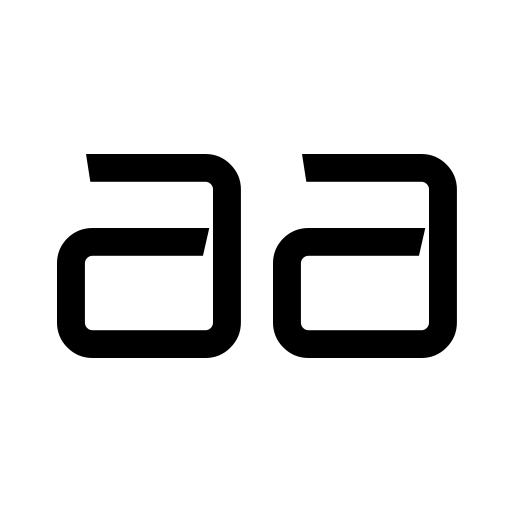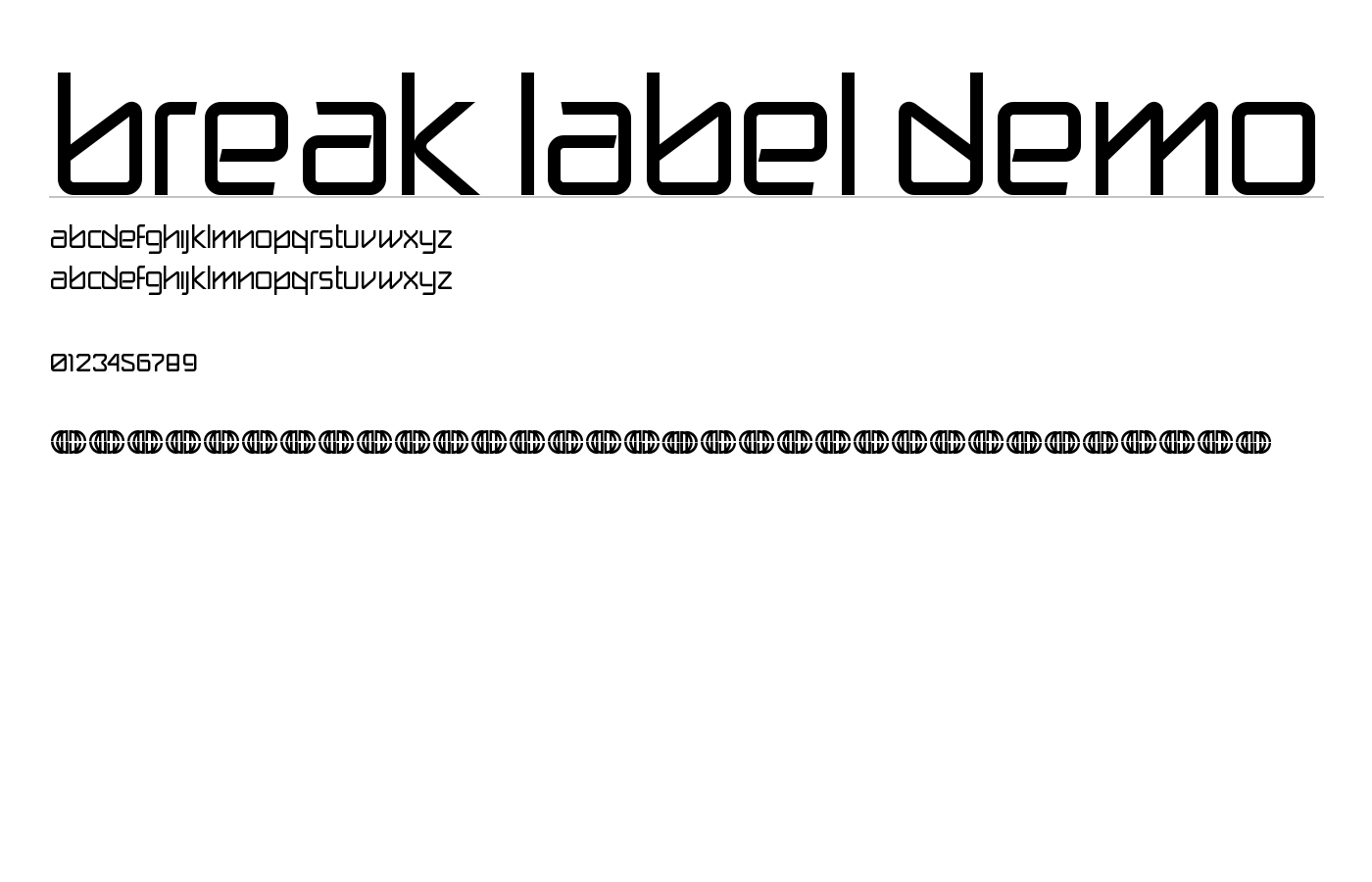
Break Label DEMO is a modern, geometric sans serif font with a sleek, technical feel. Its narrow, uniform strokes and squared shapes create a futuristic and minimalist look, making it perfect for tech branding, digital interfaces, and contemporary design projects. This font shines in headlines and logos where a clean, cutting-edge appearance is desired.
break label DEMO Font